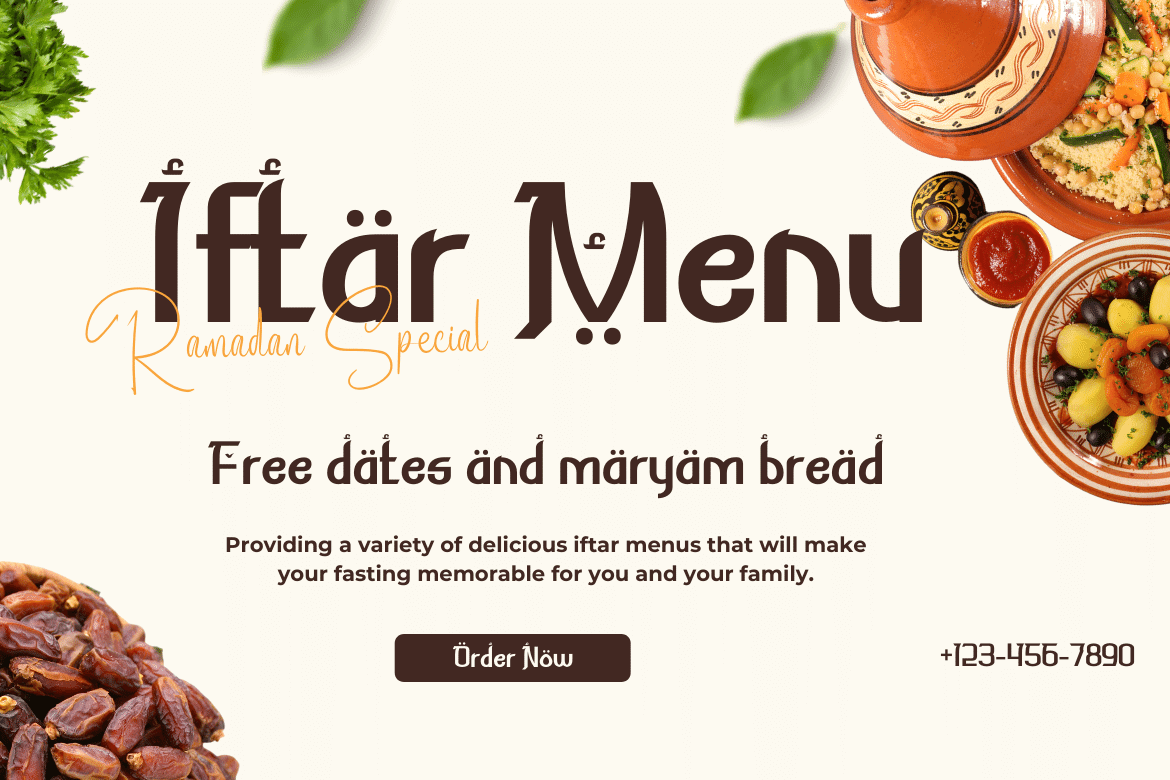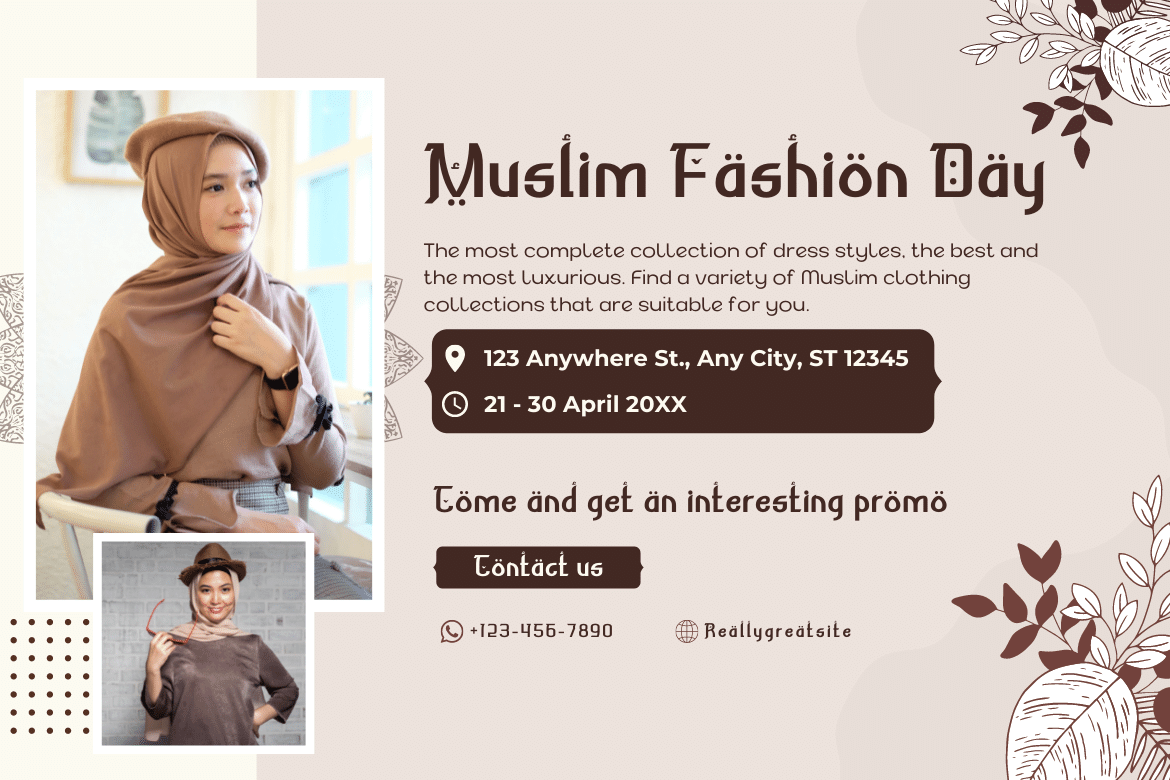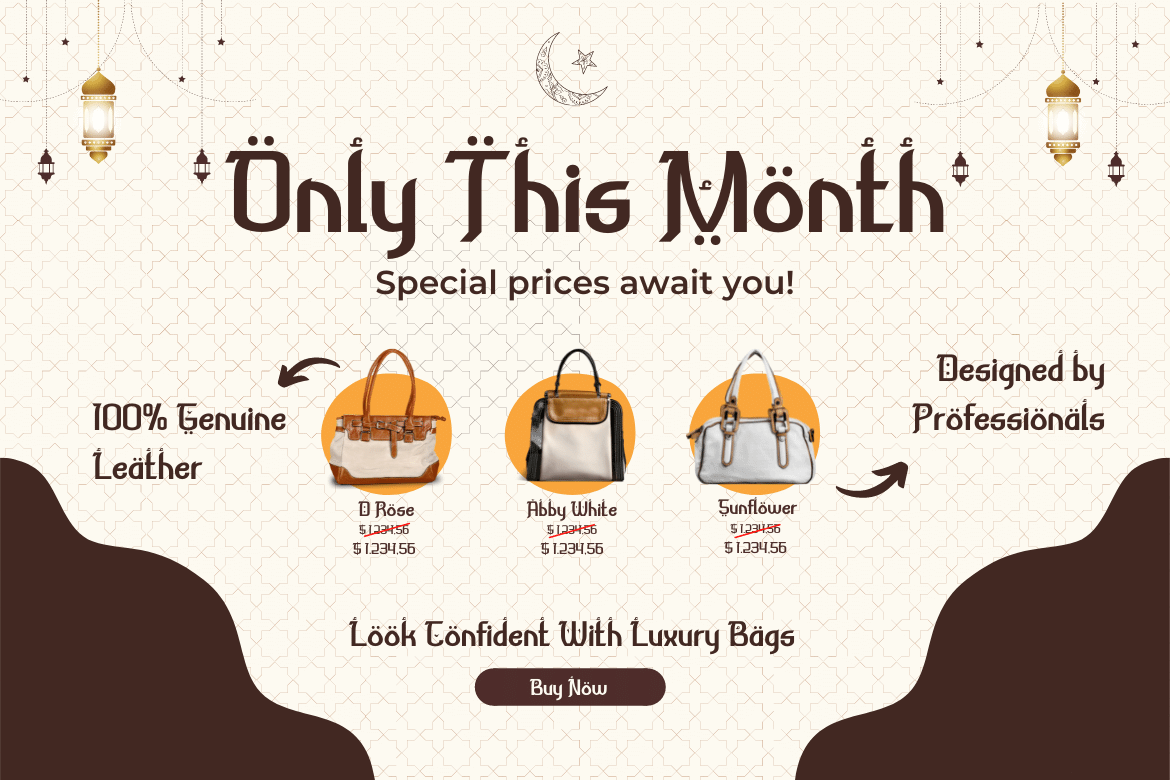
Syakifah
Introduce Syakifah, Arabic style font For brands and designers around the world, Syakifah provides beautiful Arabic themed fonts, creating unique and luxurious designs. With each font, you’ll find that it’s lively, sharp, and clean – be sure to add it to your collection today.
• Fonts include multilingual support